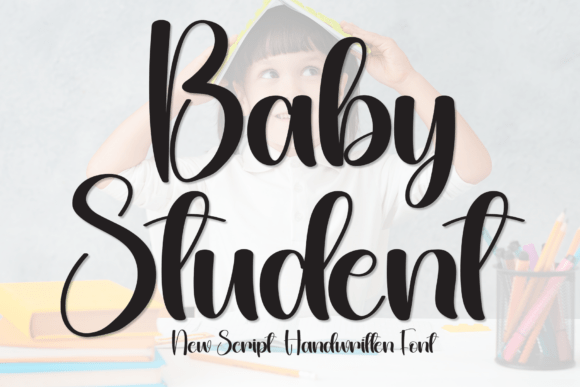
Introducing the Joy of Early Learning: Baby Student Font
As designers, we’ve all had that moment when a font speaks to us, and we can’t help but imagine the perfect project to bring it to life. For me, it was the first time I saw a handwritten title in a children’s book, and I knew I had to recreate that magic. That’s where Baby Student Font comes in – a charming, script handwritten font that captures the essence of early learning and the joy of discovery.
Baby Student Font is designed to bring a personal, handmade touch to your creative projects, making it an ideal choice for designers looking to create heartwarming and engaging content. With its thick, ink-rich downstrokes and playful, organic loops, this font is perfect for projects focused on children, education, and lifestyle branding.
Baby Student Font Key Features
- Font Style: A child-friendly, handwritten font designed for educational purposes.
- Unique Characteristics: Features a playful, cursive design with subtle irregularities, making it perfect for titles, headings, and educational materials.
Baby Student Font Review
Overall, I think the Baby Student Font is a cute and playful font that could be great for specific use cases. ✨ One of the things that works well is its unique, handwritten feel that can add a personal touch to designs.
Here are some things that I think are done well:
- ✨ The font has a clear, legible design that makes it easy to read, even at smaller sizes.
- ✨ The font comes in a range of weights, from light to bold, which gives designers flexibility in their designs.
- ✨ The font includes a range of glyphs, including punctuation and symbols, which makes it a great option for titles and headings.
- ⚠️ The font may not be suitable for formal or professional designs, as it has a more casual, handwritten feel.
- ⚠️ The font may not be as versatile as other fonts, as it’s primarily designed for use in titles and headings.
- ⚠️ Some users may find the font’s quirks and imperfections distracting, particularly in larger blocks of text.
Overall, I think the Baby Student Font is a fun and creative option for designers who want to add a personal touch to their designs. It’s not a one-size-fits-all solution, but it can be a great choice for specific use cases.
For optimal results, use Baby Student Font for titles, headings, and quotes. It pairs well with sans-serif fonts like Arial or Helvetica. Use it in designs that require a playful and educational tone, such as children’s books, educational materials, or websites for kids.